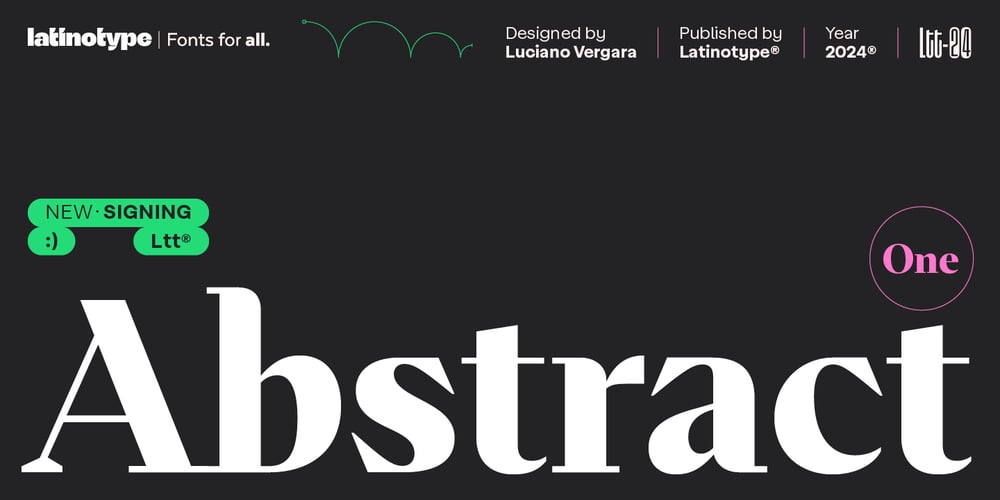
Abstract One
Abstract One font
Abstract One Font Family was designed by Luciano Vergara and published by Latinotype. Abstract One contains 14 styles and family package options. Abstract One is a contemporary and eclectic serif typeface inspired by today’s life and created in times of pandemic. This family includes a true italic variant —that has its own personality— alternates, lining and old style figures, numerators and denominators & Cyrillic support.